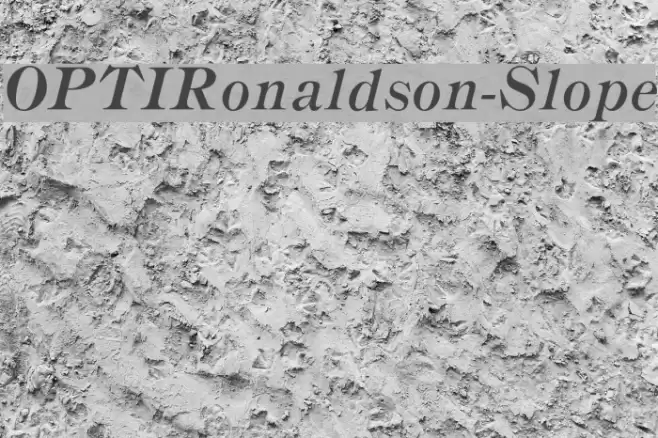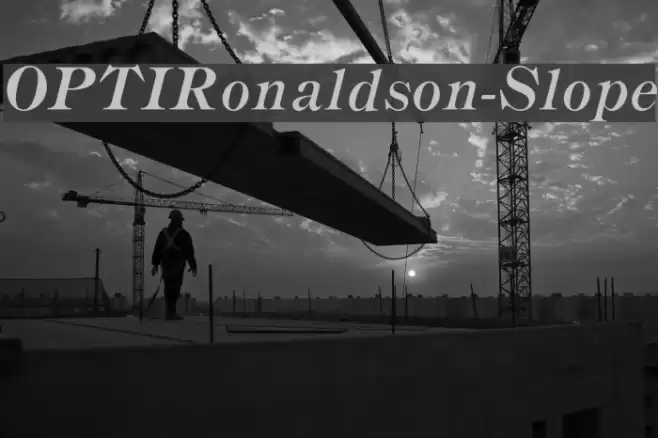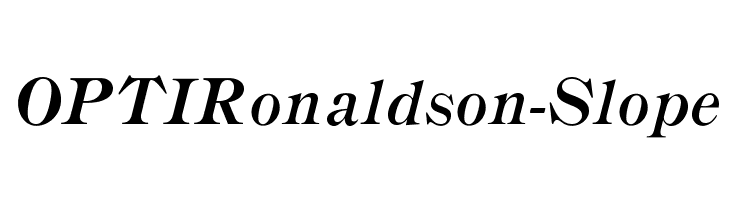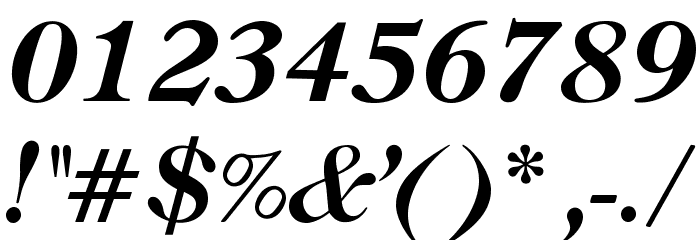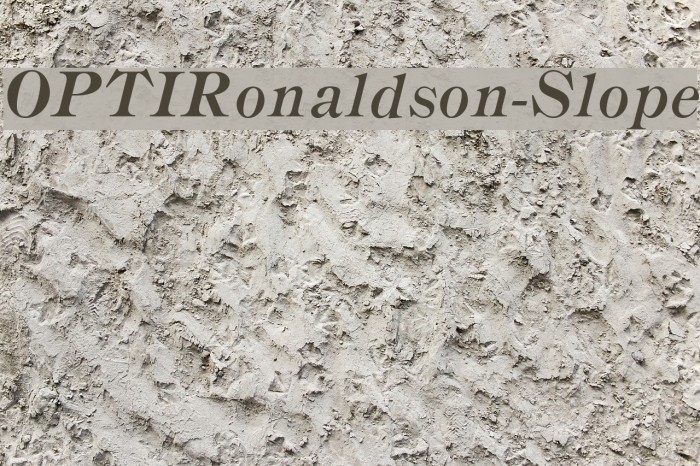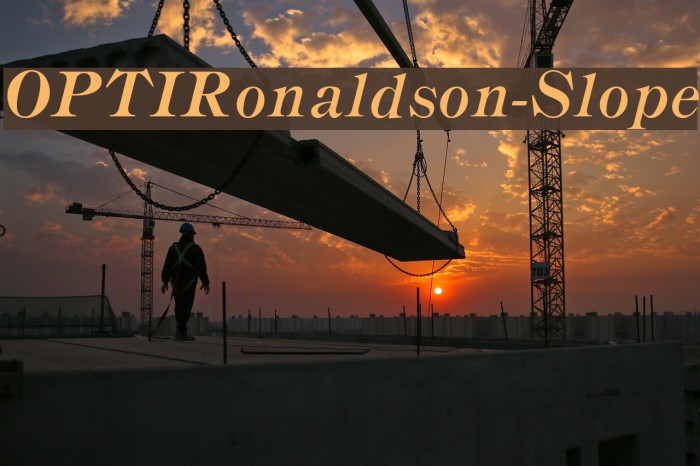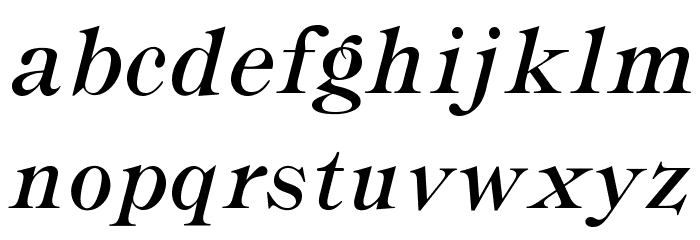
OPTIRonaldson-Slope Font
OPTIRonaldson-Slope Description
This elegant serif font features a classic and sophisticated design with a slight slope, giving it a refined and traditional appearance. The uppercase letters are bold and commanding, while the lowercase characters maintain a graceful flow. The numerals are distinct and clear, ensuring readability. Special characters are well-integrated, maintaining the overall aesthetic. The font's contrast is moderate, with varying stroke thickness that adds to its visual appeal. It is suitable for formal and professional applications, offering a timeless quality that enhances any project.
A classic serif font with a refined slope and moderate contrast from Uncategorized fonts.
- Proposed Projects: Ideal for formal invitations, editorial design, branding, and classic-themed projects.
- Overall Style: Classic